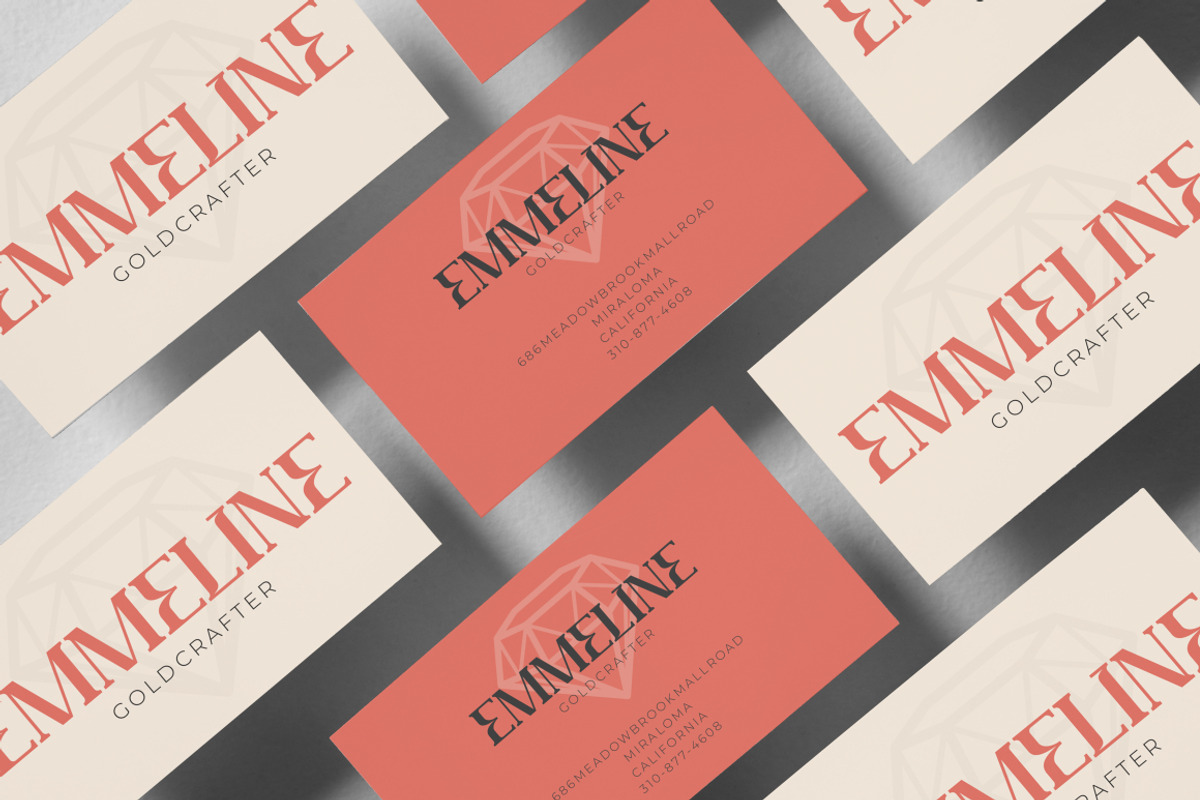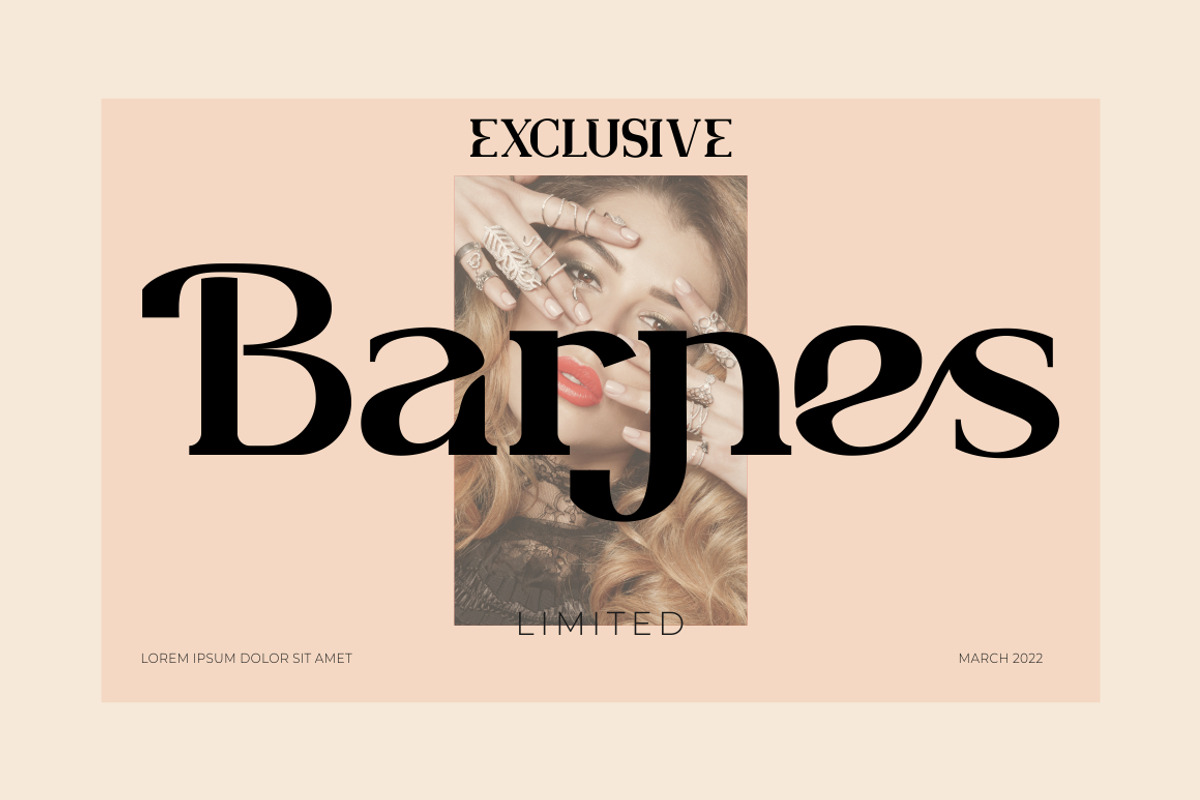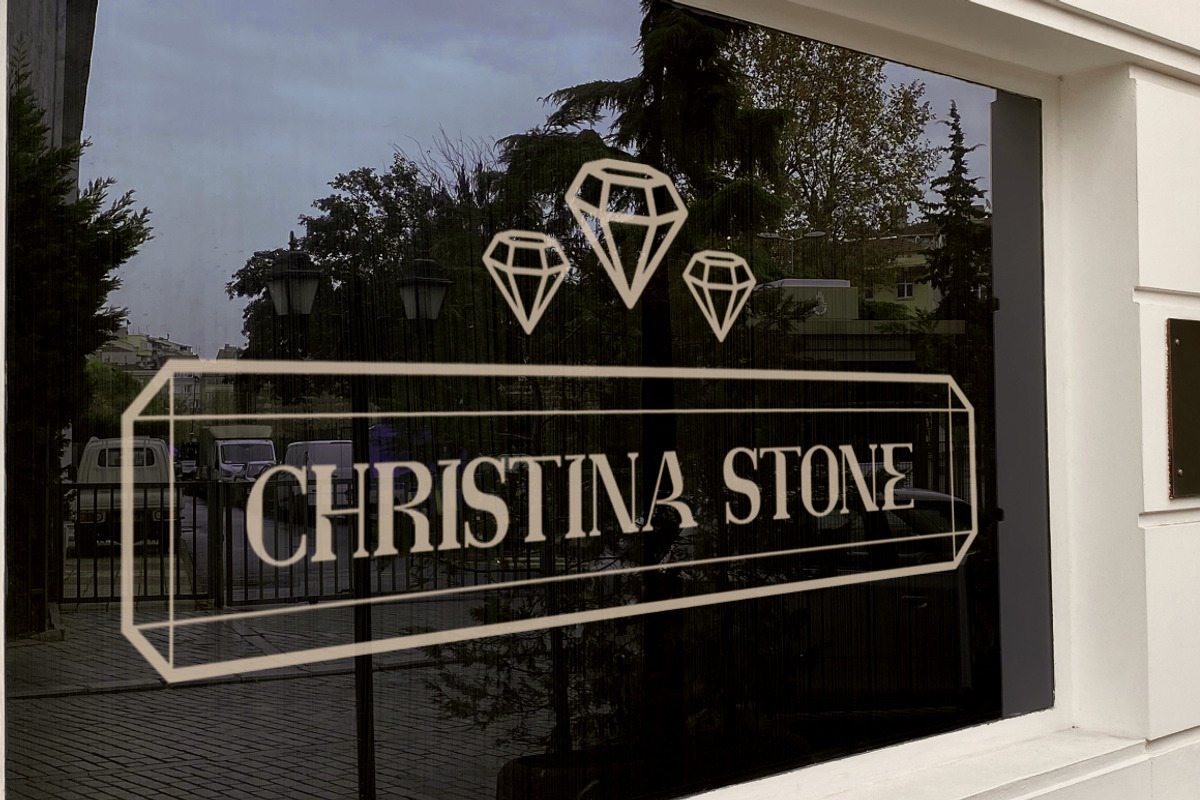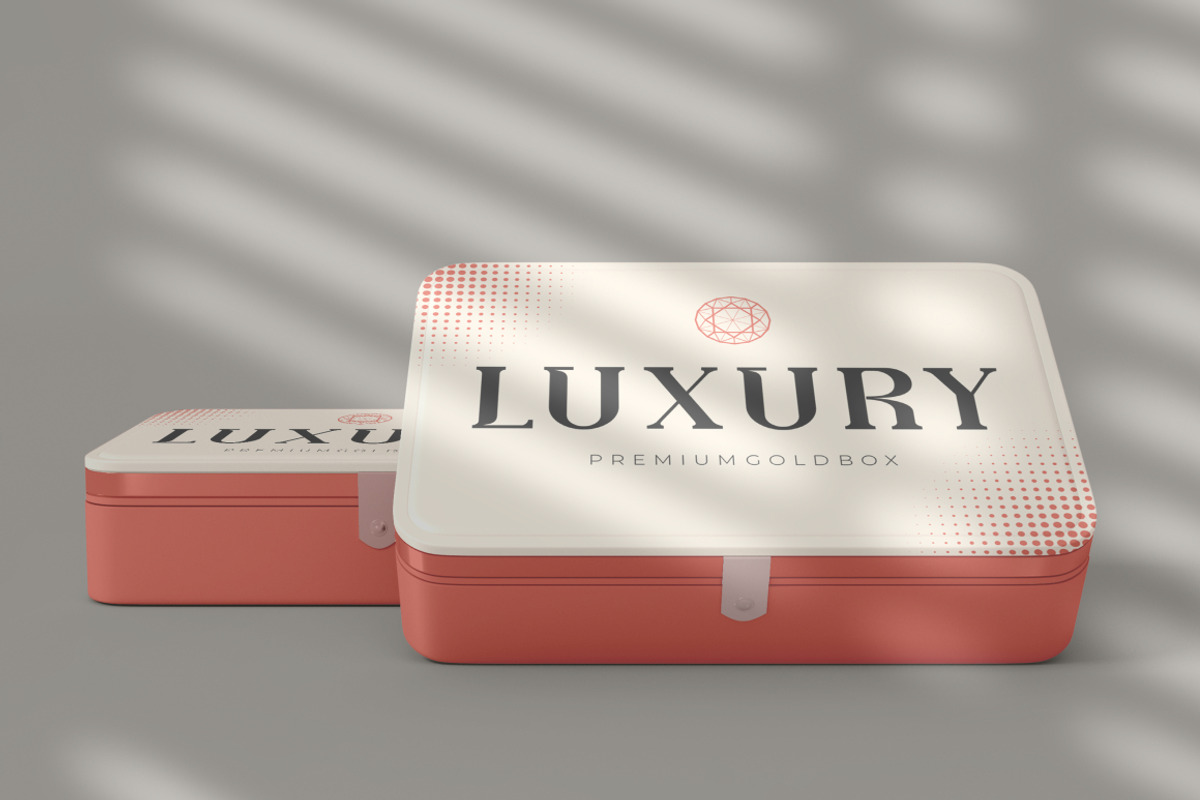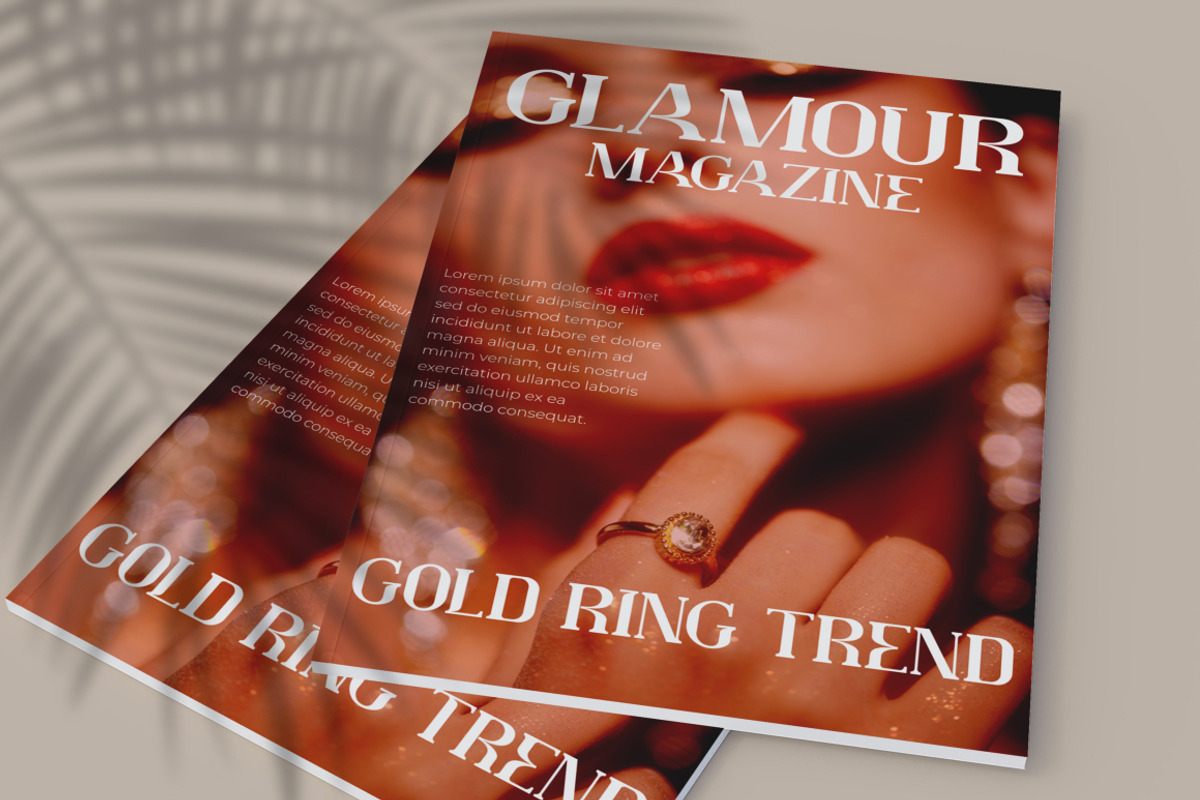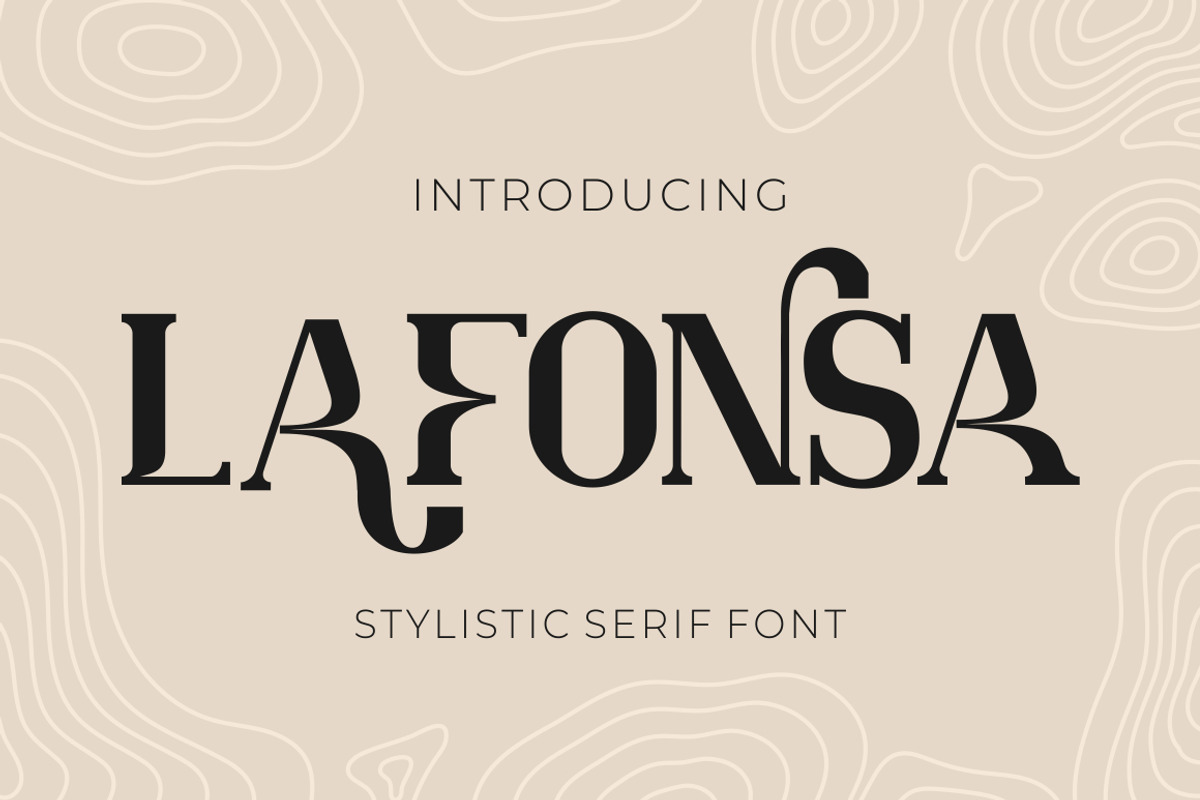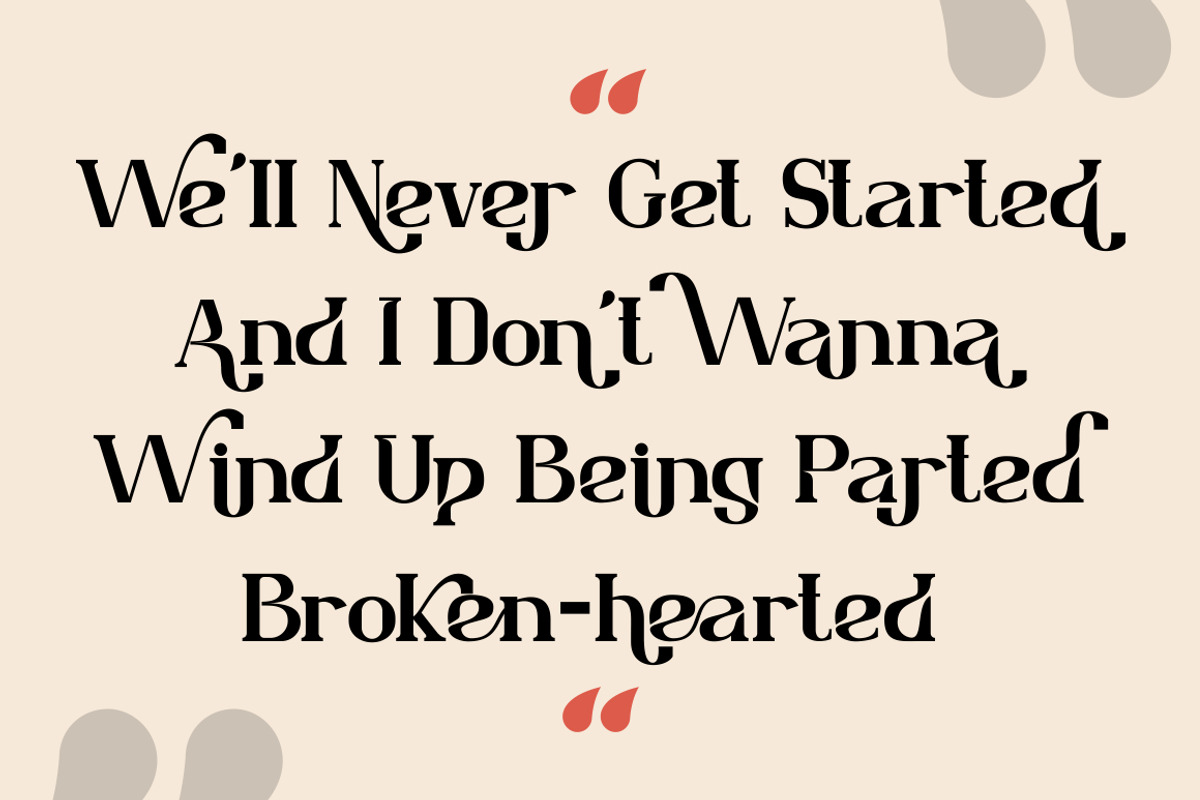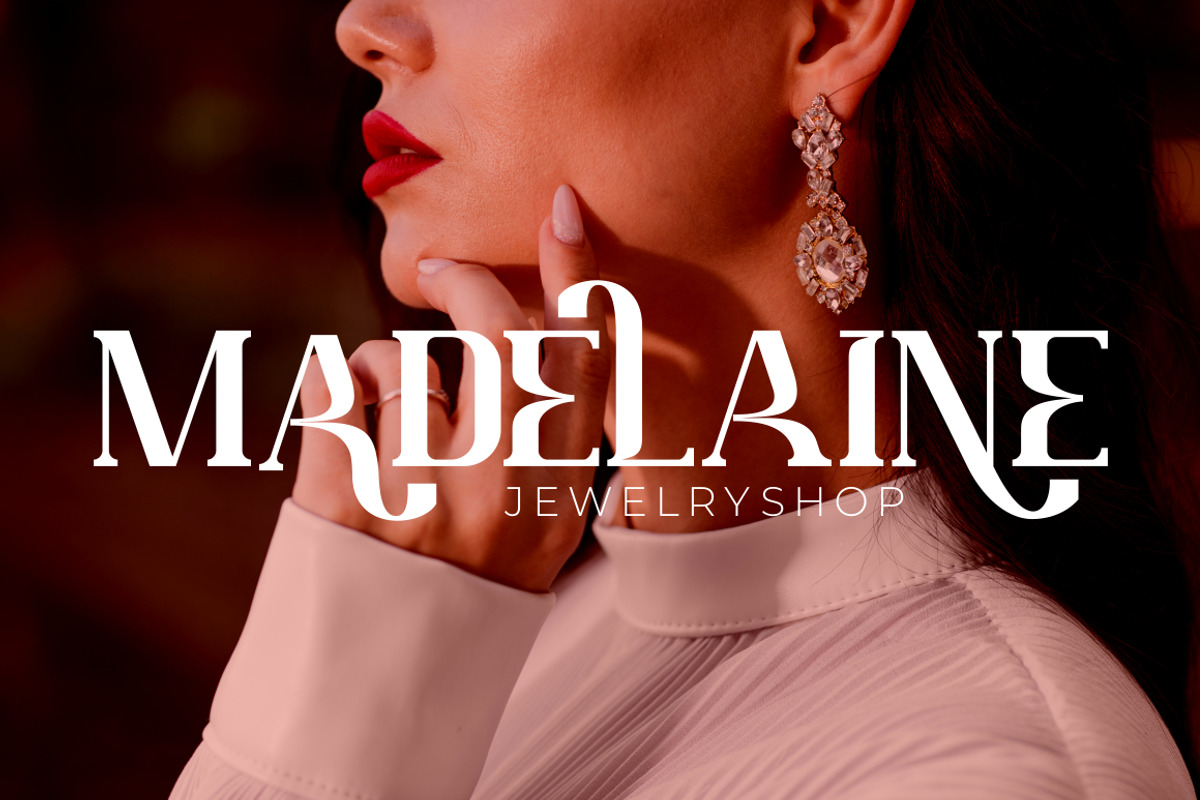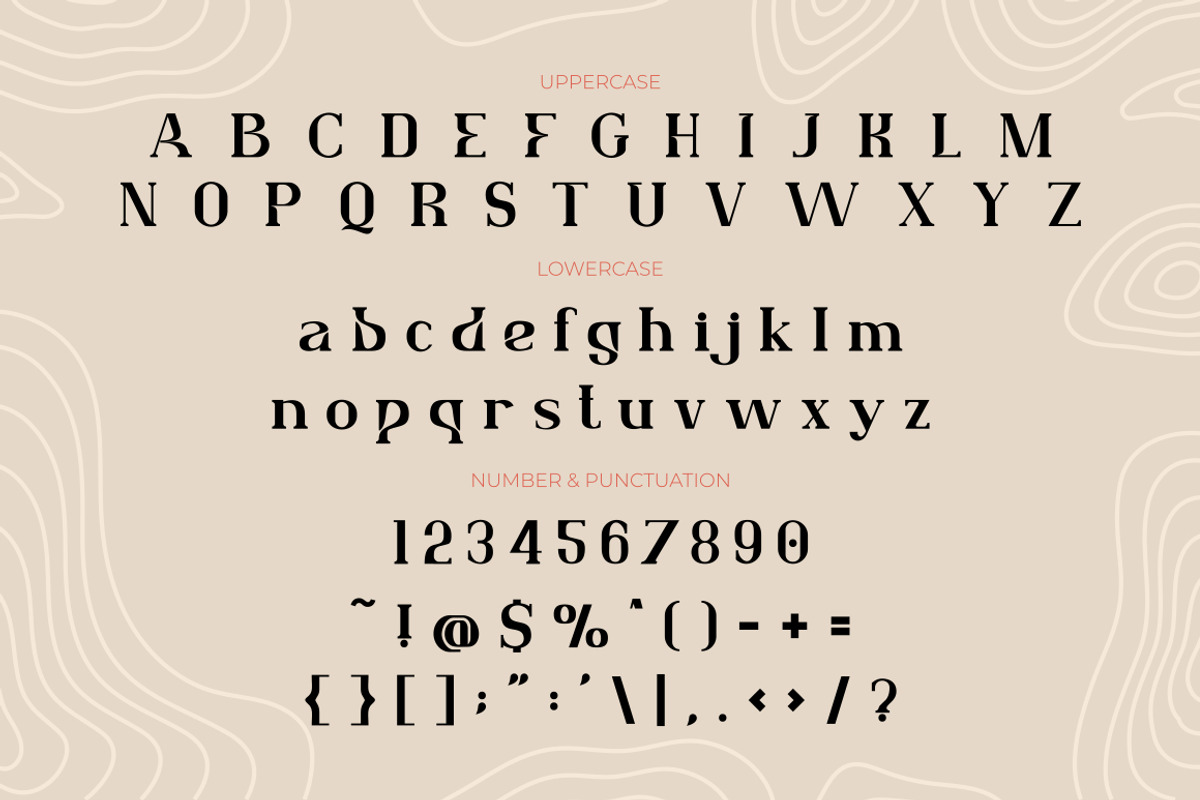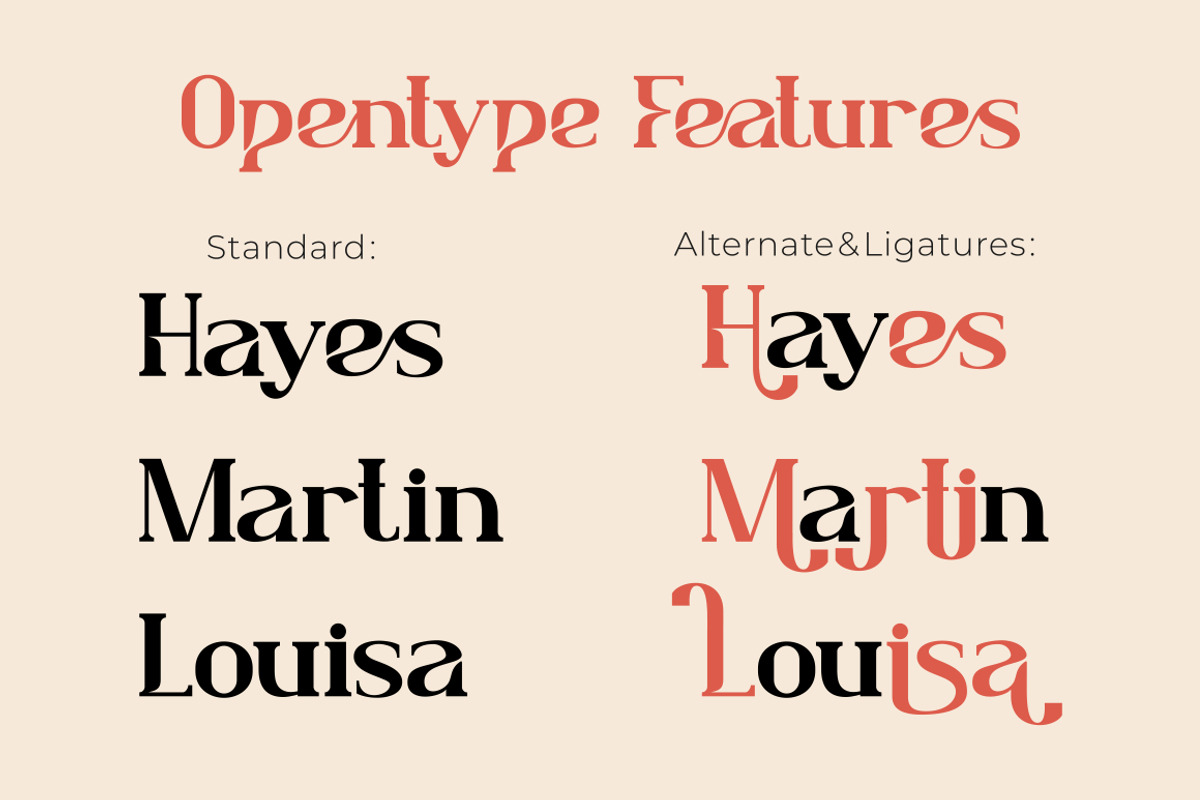
Lafonsa - Stylistic Serif Font
LAFONSA - STYLISTIC SERIF FONT
Introducing a new serif font called “ Lafonsa “. Inspired from stylistic typography and lettering in the unique alphabet combine with serif typography style, you can make letter combinations for lettering with a lot of options. Come with open type feature ( a lot of alternates and end swash), its help you to make great lettering. Lafonsa best uses for Logotype, heading,cover, poster, logos, quotes, product packaging, header, merchandise, social media & greeting cards and many more. Lafonsa is also support multi language.
Comes with feature :
- Opentype (Alternates And Ligatures)
- Number, Punctuation And Symbols
- Multilanguage Support.